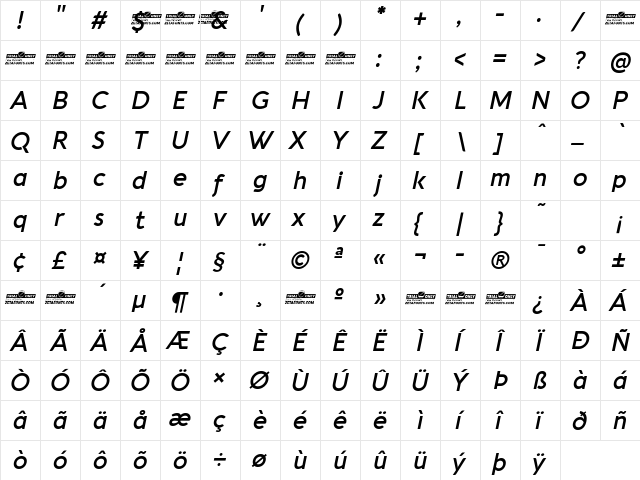
Aquawax Pro Trial DemiBold Italic
Design Context for Aquawax Pro Trial Typeface
Aquawax Pro Trial takes a measured approach to typography — its balanced proportions and neutral character make it a reliable workhorse for both digital and print work. The dynamic lean of this cut emphasises speed and emphasis in any layout. The heavy weight commands attention and anchors typographic hierarchies.
Pro Tip: Use Aquawax Pro Trial for emphasis, pull quotes, and subheadings where its slanted energy can add rhythm to the layout.